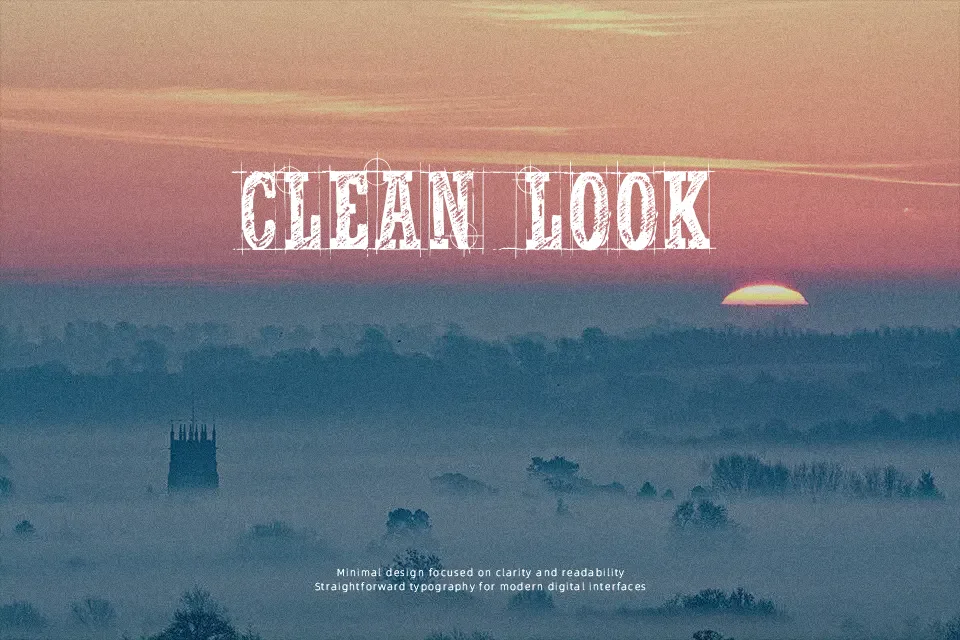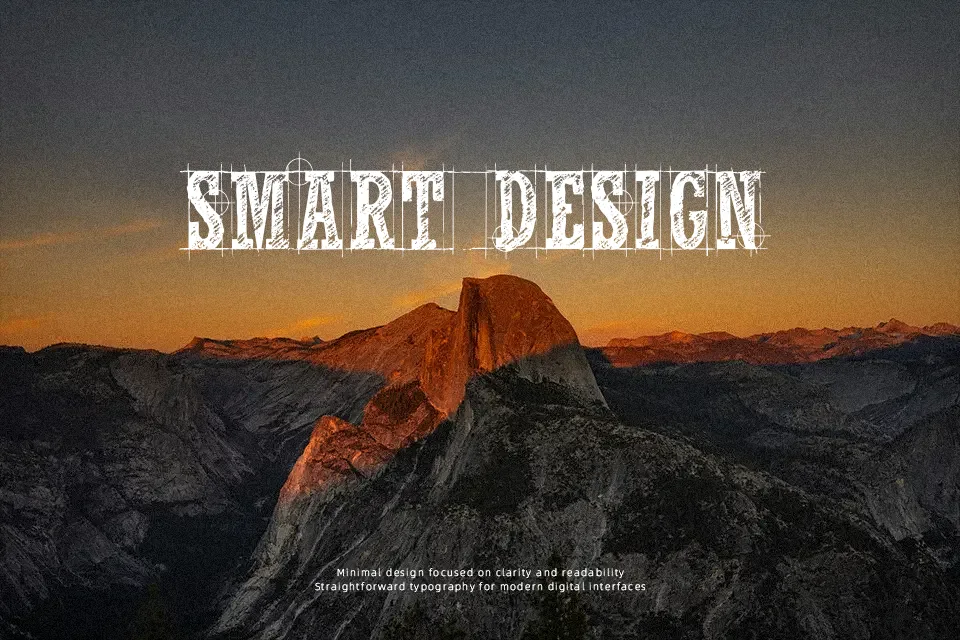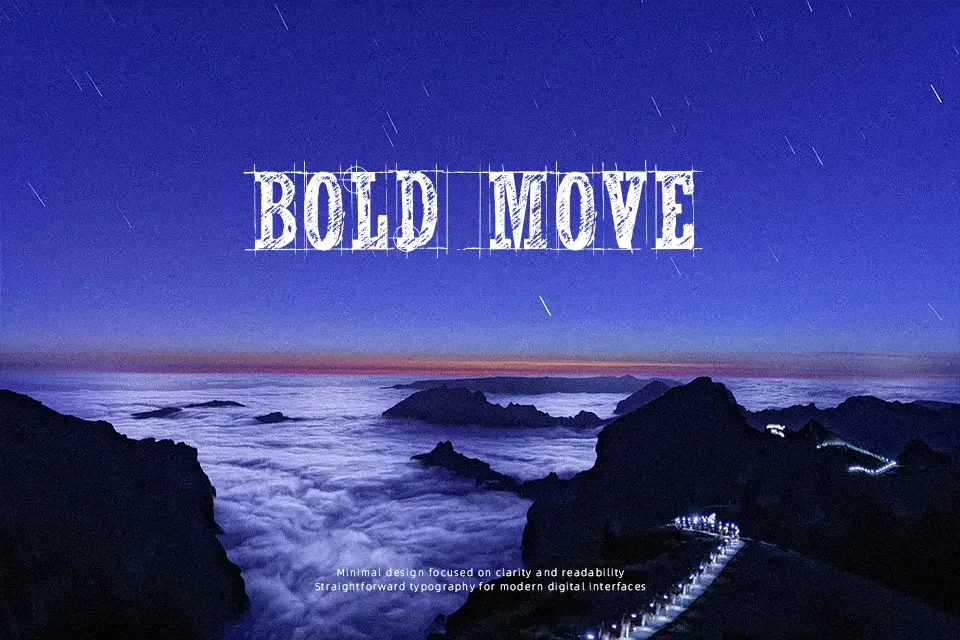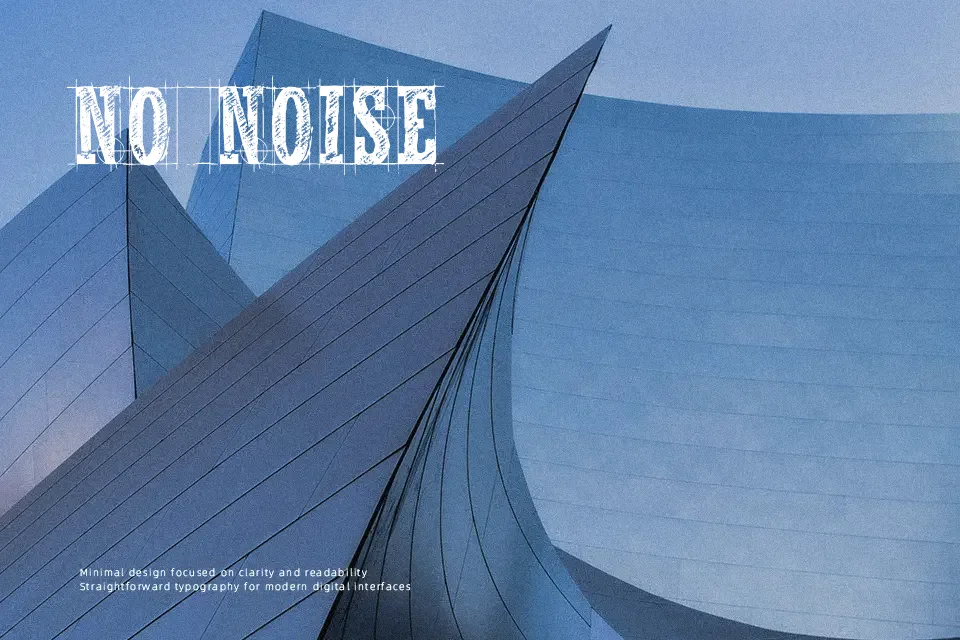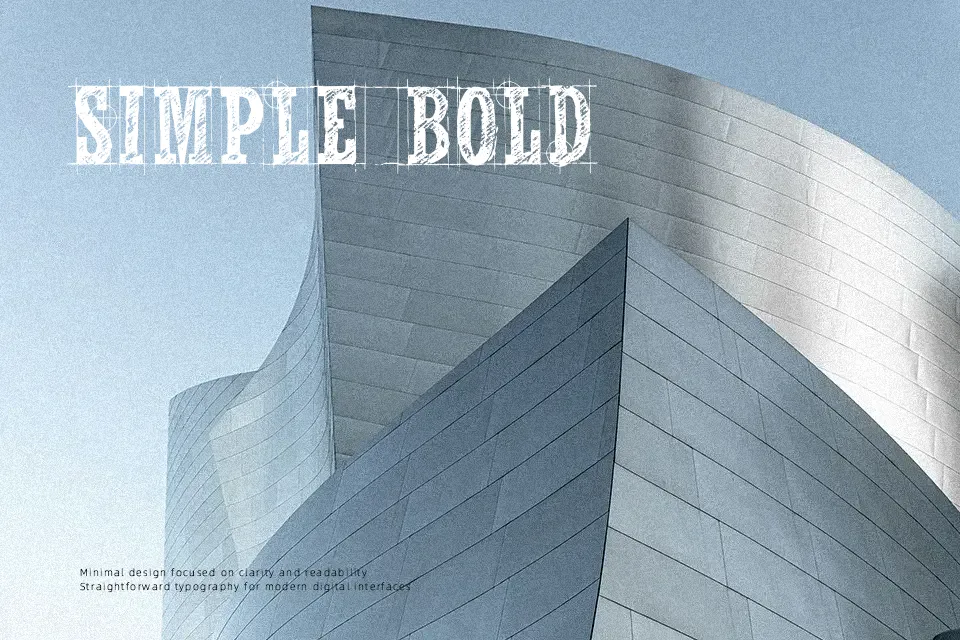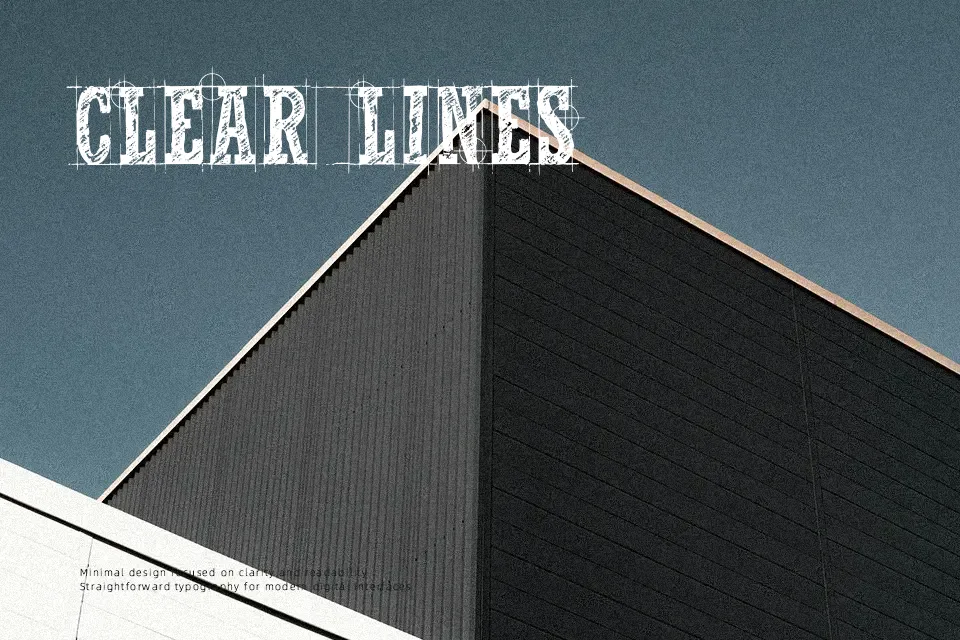
CF Nelson Old Caracters Font
Designed by Cloutierfontes
CF Nelson Old Caracters Font showcases a rigid geometric framework defined by intricate grid lines and drafted character silhouettes. Each glyph incorporates visible construction marks, giving the letterforms an architectural and technical quality with wide proportions and deliberate spacing. The open internal tracking helps prevent fine intersecting strokes from blurring together when rendered at substantial scales. This decorative design proves especially effective for vintage project titles, technical diagrams, and industrial packaging graphics where prominent display hierarchy is required. However, the complex linework significantly reduces clarity at smaller point sizes, making the typeface poorly suited for dense paragraphs or body text.
Best For: architectural blueprint graphics,vintage technical posters,industrial packaging labels
Not Ideal For: long paragraph text,small interface labels,dense editorial body copy
Perfect for advertising, branding, and headline, with a creative and decorative style.